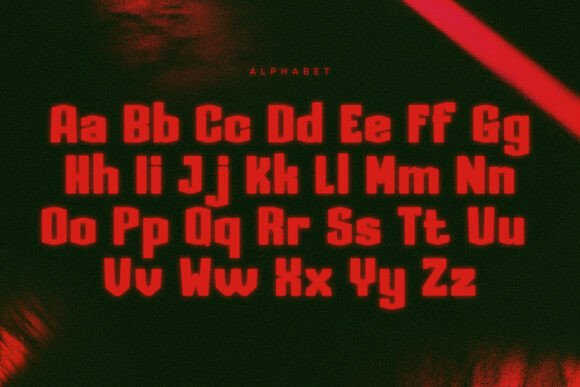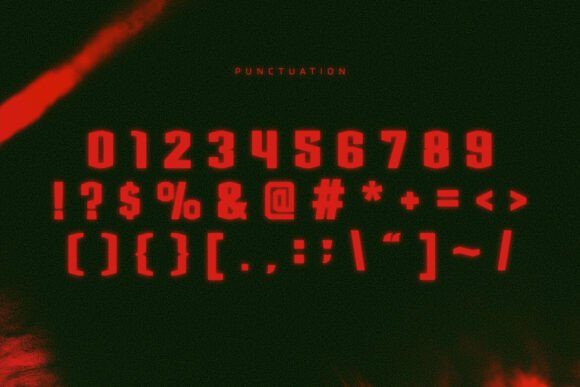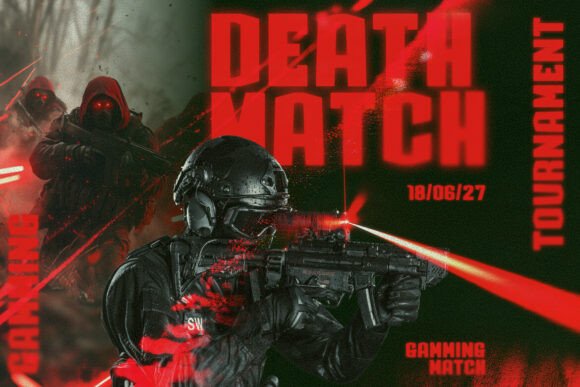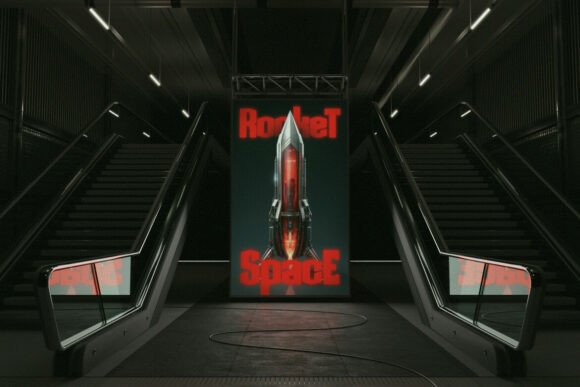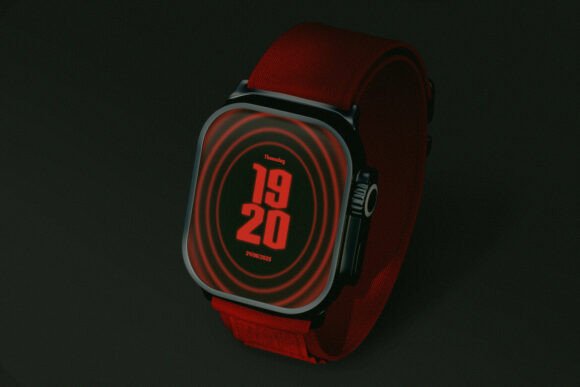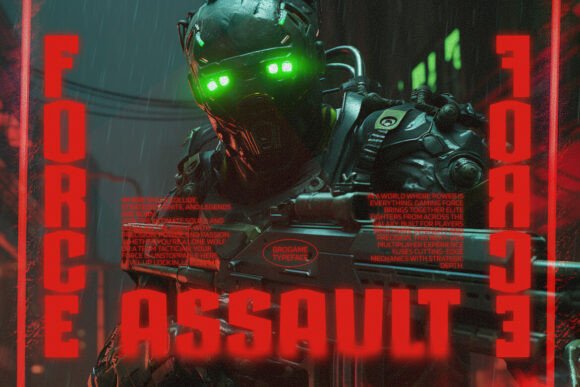
The Ultimate Gaming Font: Unlocking High-Impact Visuals with Brogame
Have you ever been in the zone, immersed in a thrilling gaming session, and felt like the visuals on your screen are speaking directly to you? For designers, this is the sweet spot – where art and technology converge to create an unforgettable experience. For many, this moment is made possible by the perfect font, one that elevates the game (pun intended) and leaves a lasting impression.
Enter the Brogame Font, a cutting-edge typeface designed specifically for high-impact gaming visuals and digital design. This bold, futuristic font is tailored to capture the essence of cyberpunk, sci-fi, and tech-driven themes, making it the go-to choice for eSports branding, user interfaces, game titles, and streaming overlays. With its sharp lines and modern display aesthetic, Brogame Font delivers strong readability and a powerful presence, making it a valuable asset for designers seeking to create intense, tech-inspired visuals that resonate with the gaming community.
Key Features of Brogame Font
- Unique Characteristics: Brogame Font features a unique blend of gaming and bro culture-inspired aesthetics, making it perfect for designs targeting a young adult audience.
Review of Brogame Font
When I first laid eyes on the Brogame Font, I was immediately drawn to its unique, energetic vibe. It’s perfect for any project that needs to convey a sense of excitement or playfulness. ✨ The font’s bold lines and quirky character shapes make it stand out from more traditional fonts, and it’s sure to grab the viewer’s attention.
One of the things that really works well with Brogame Font is its versatility. ✨ It comes in a wide range of weights and styles, from light and airy to heavy and dramatic. This makes it easy to use in a variety of different contexts, from logo design to digital displays. ✨ The font also includes a range of international characters, making it suitable for use in multiple languages.
However, there are a few limitations to consider. ⚠️ For one thing, the font can be a bit overwhelming if used in large quantities. It’s best to use it sparingly, as a accent or focal point, rather than as the main font for a large block of text. ⚠️ Additionally, the font’s quirky nature can sometimes make it difficult to read, particularly for those with visual impairments.
- Unique and energetic vibe
- Highly versatile
- Wide range of weights and styles
- International character support
- Can be overwhelming if used in large quantities
- May be difficult to read for those with visual impairments
Overall, I think the Brogame Font is a great addition to any designer’s toolkit. While it may have a few limitations, its unique personality and versatility make it a valuable asset for any project that needs to stand out.
Getting the Most Out of Brogame Font
Brogame Font is best used for titles, headings, and other large text elements. It’s also great for creating a bold and eye-catching look.
Experiment with different font sizes and styles to find the perfect combination for your project.
Brogame Font is commonly used for:
1. Gaming-related projects, such as game titles or character names.
2. Sports-related projects, such as team logos or player names.
3. Action-packed projects, such as movie titles or video game trailers.